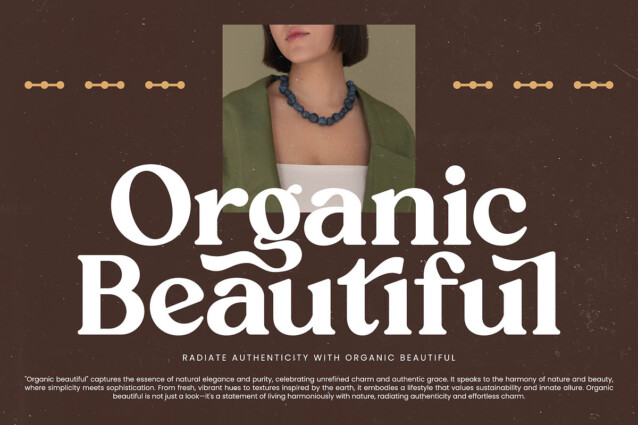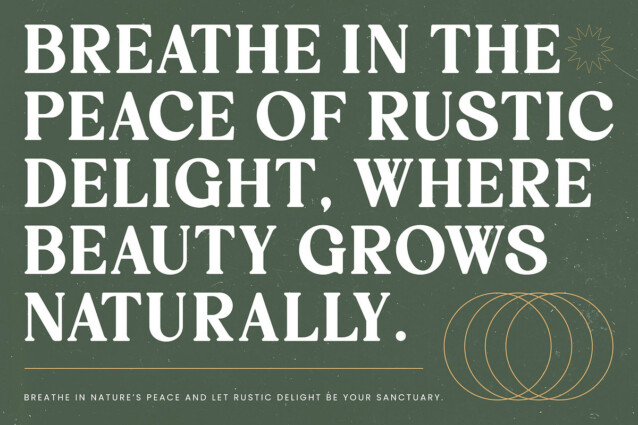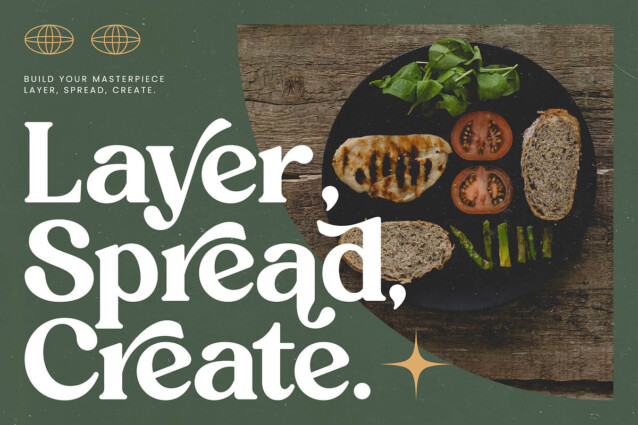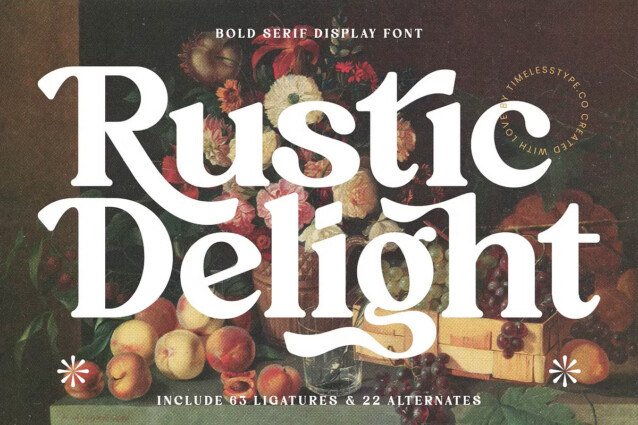
Rustic Delight Font
Rustic Delight Font is a vintage bold font created by timelesstype.co with a classic Roman style and decorative serif style. Suitable for any projects such as: logos, branding projects, homeware designs, product packaging, mugs, quotes, posters, shopping bags, t-shirts, book covers, name card, invitation cards, greeting cards, label, photography, watermark, special events, and all your other luxury and beautiful projects that need a Luxury Serif taste.